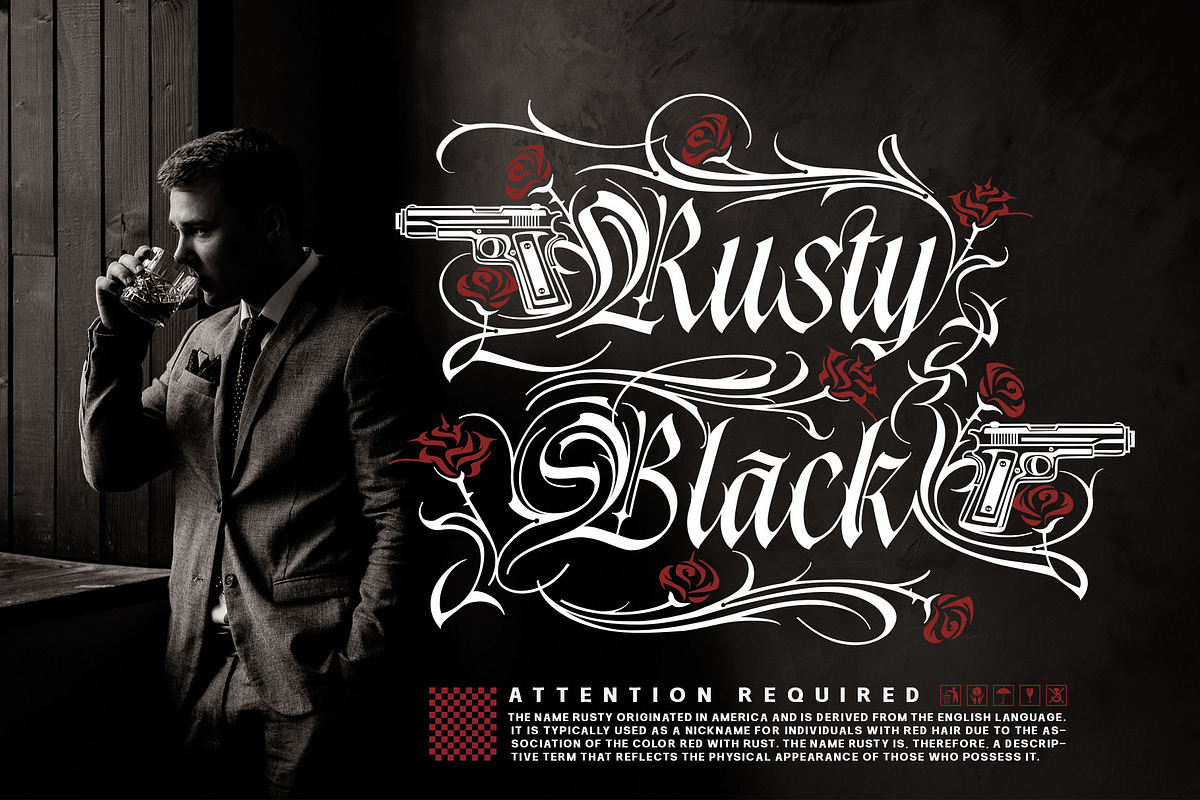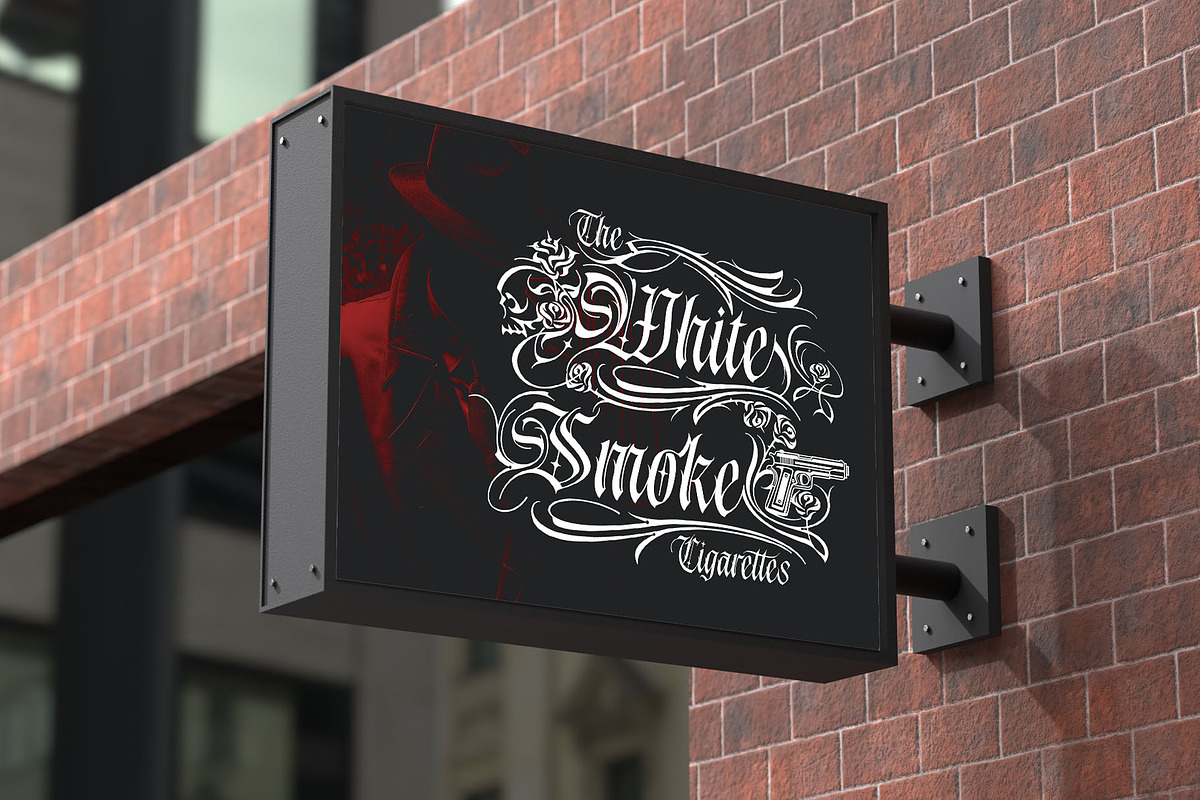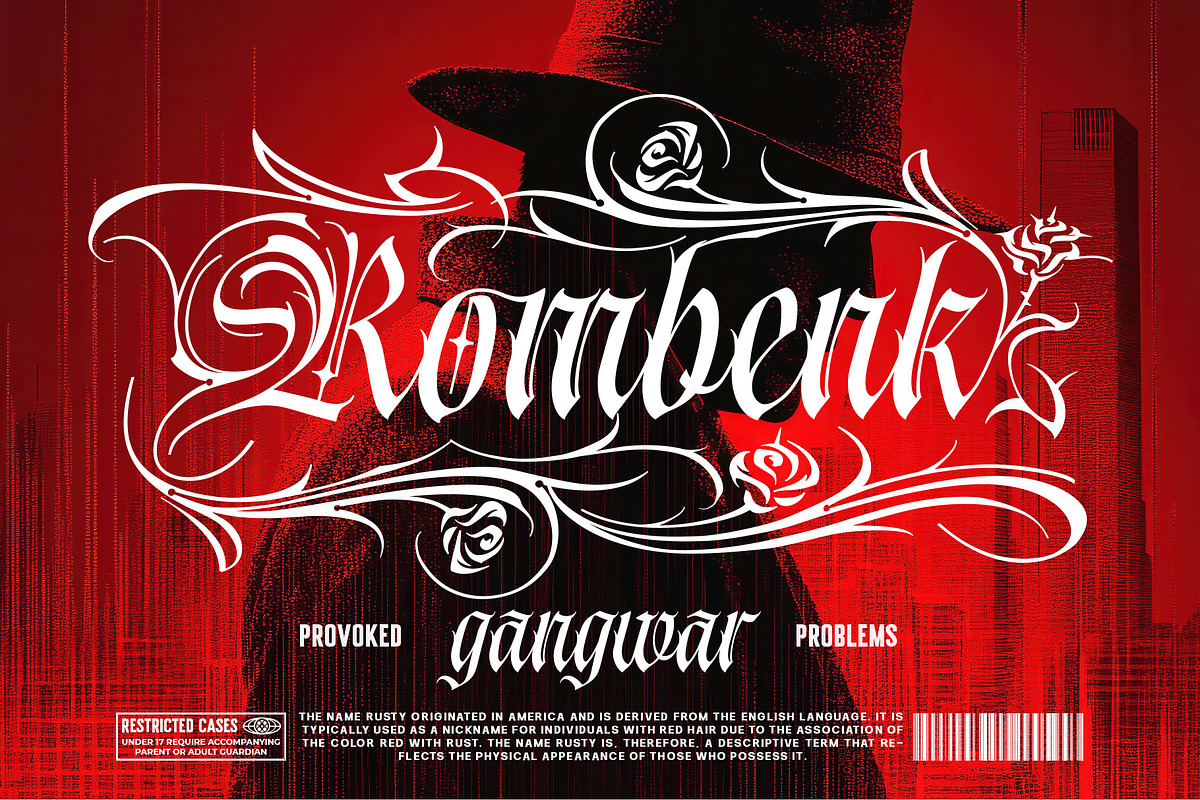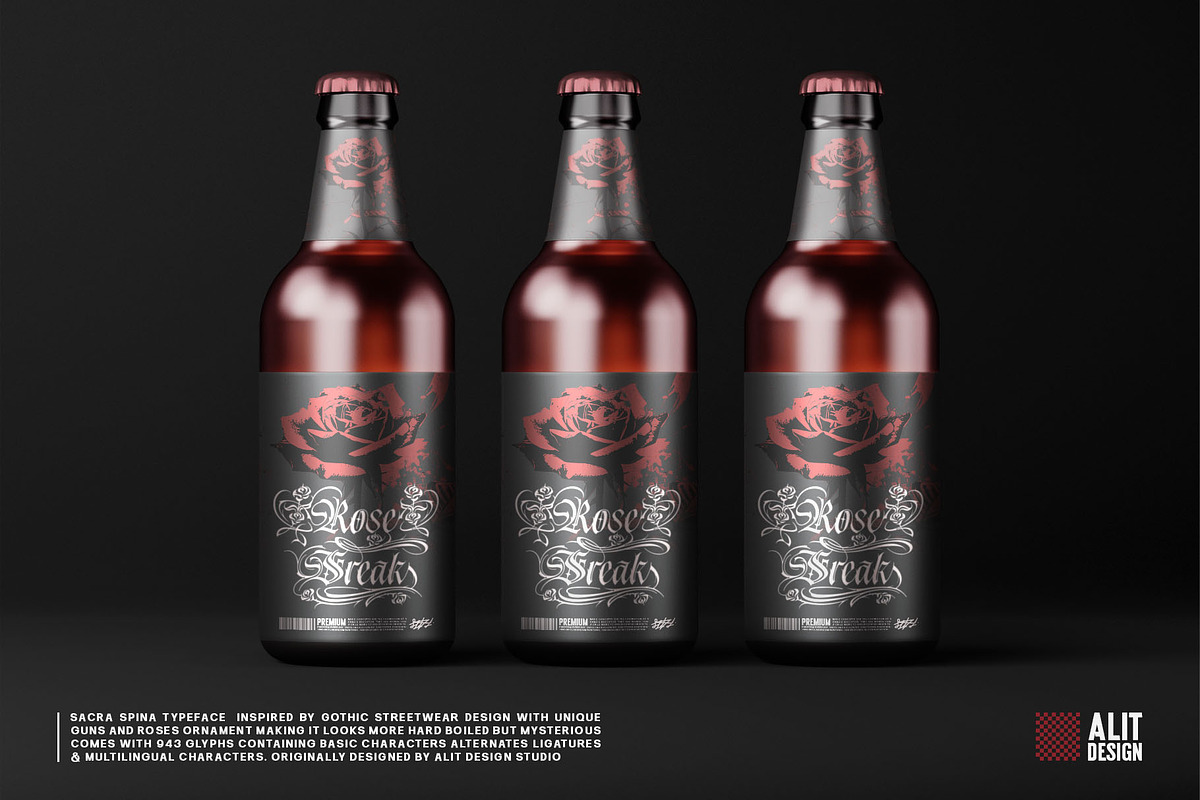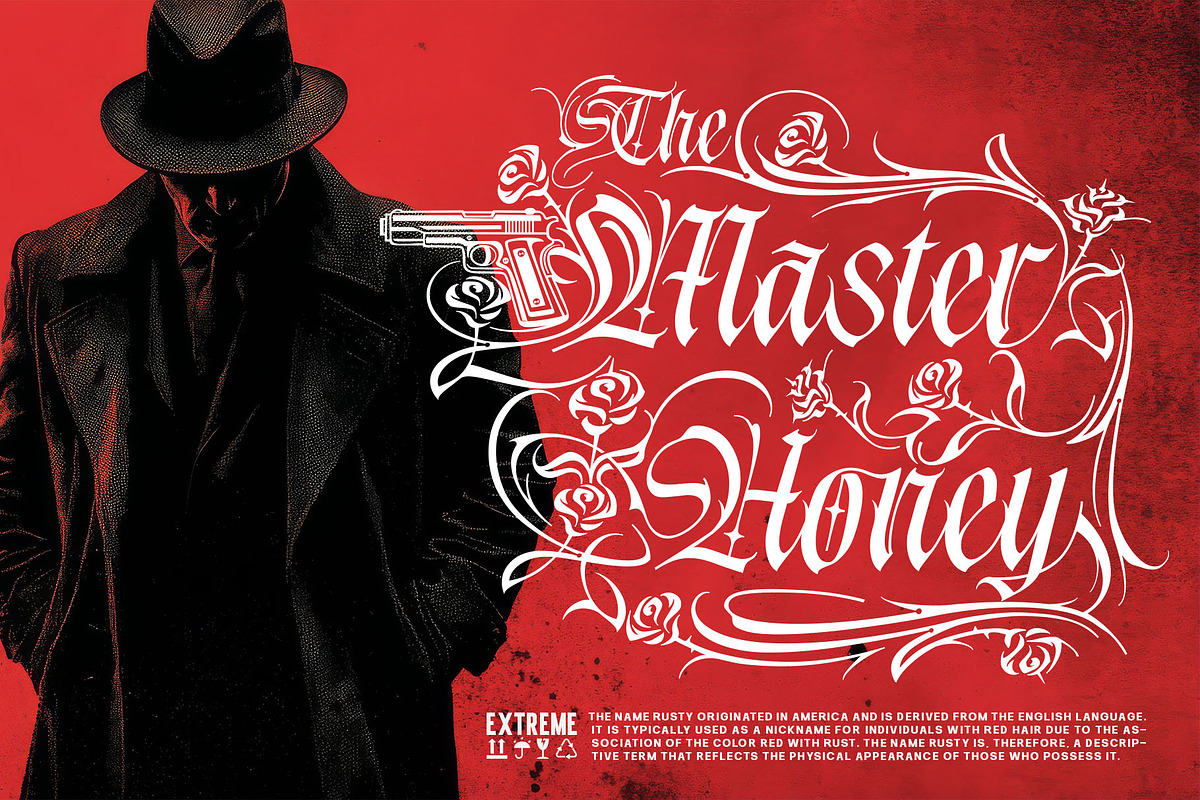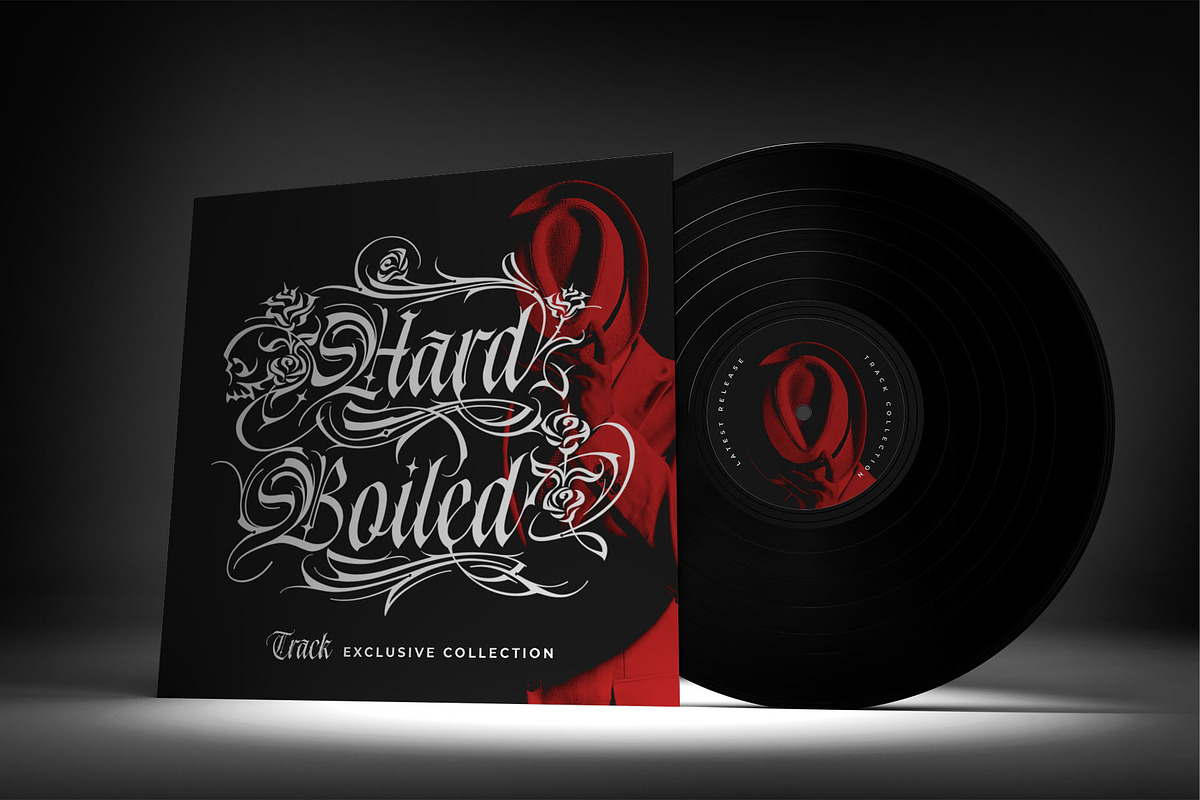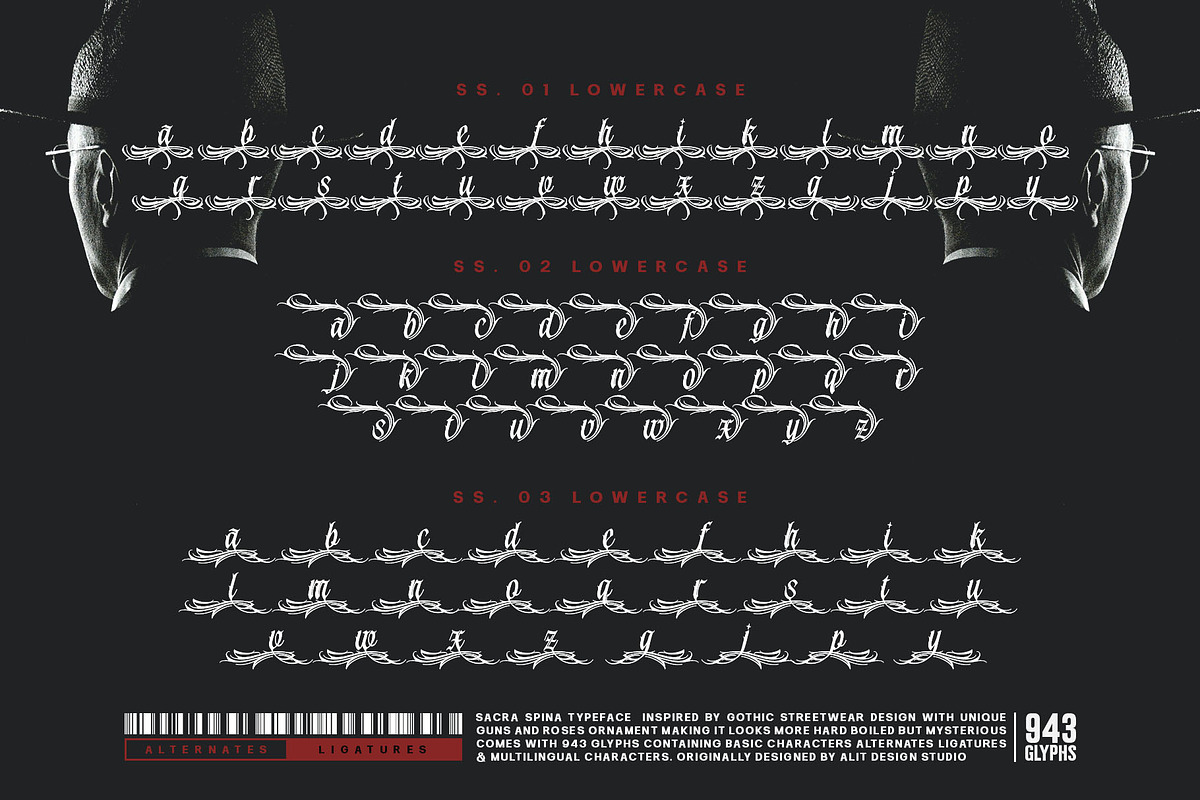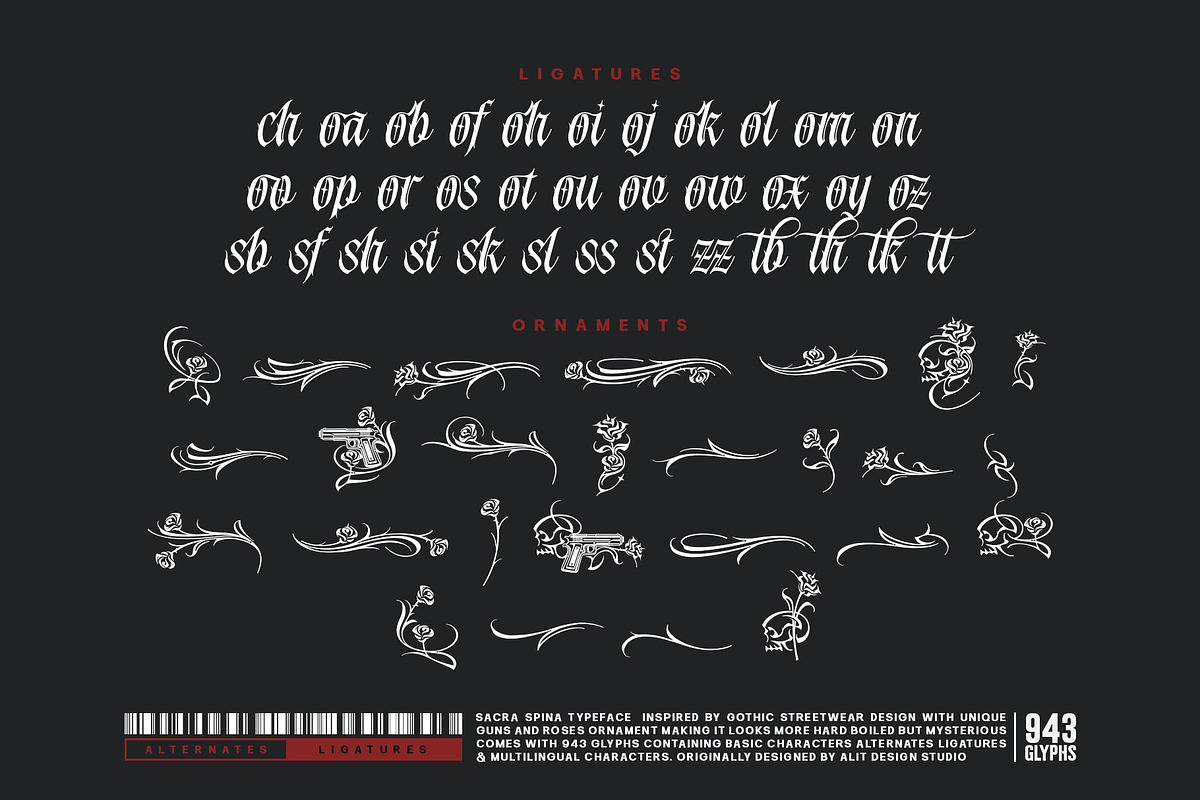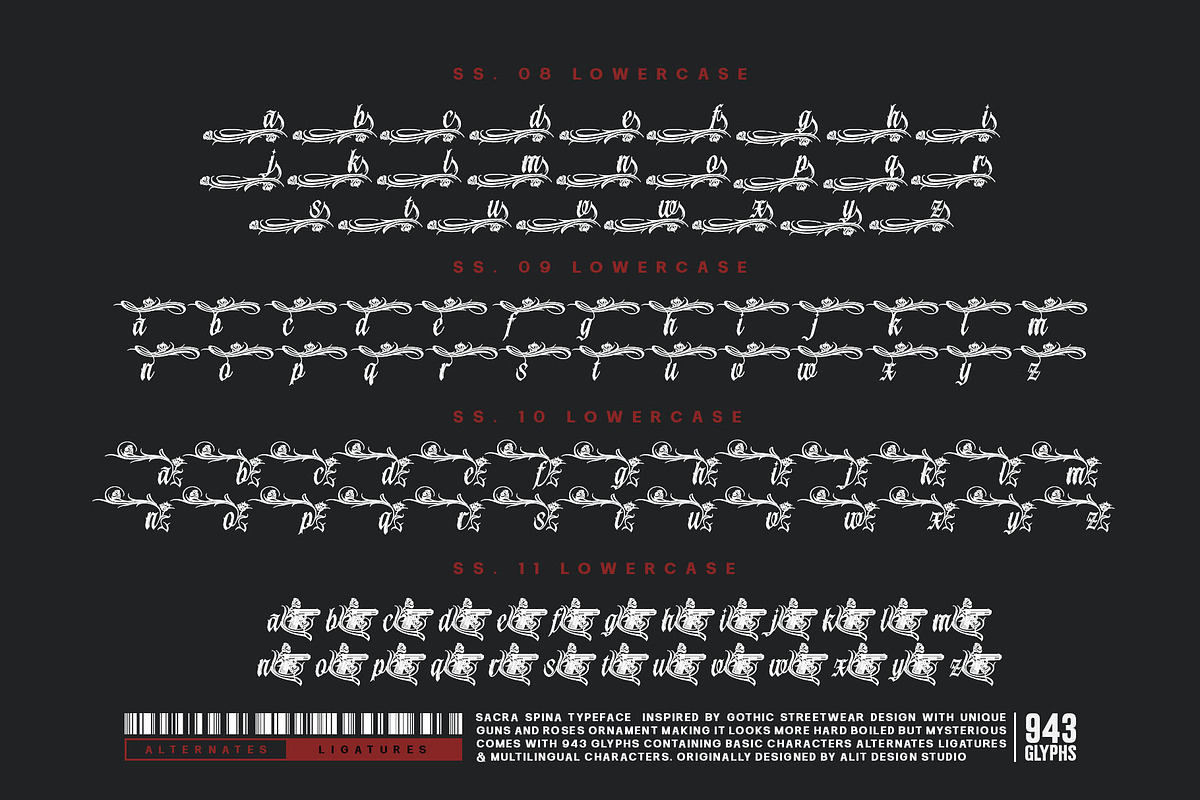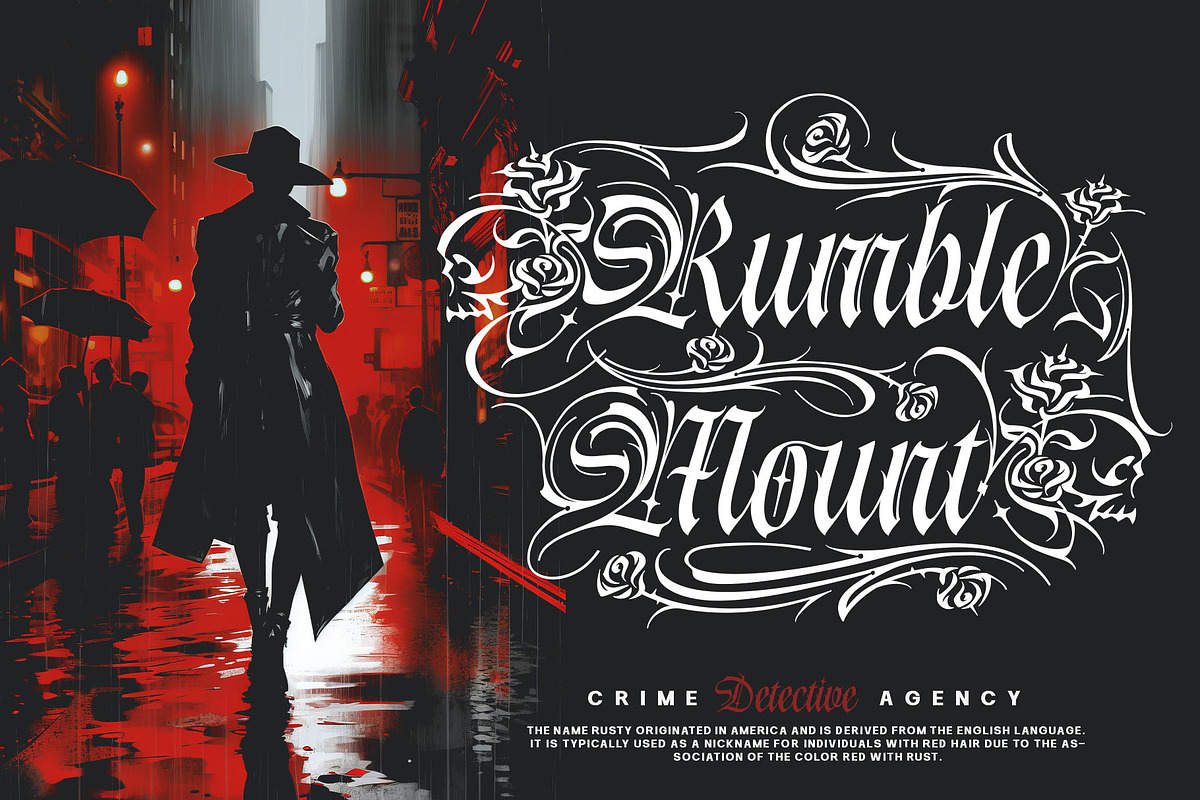
Sacra Spina Typeface
Sacra Spina | A Fierce Blackletter Typeface
Step into a world of shadow and intrigue with Sacra Spina, a blackletter typeface that bleeds attitude and sophistication.
Inspired by the raw energy of gothic streetwear and the clandestine world of classic mafia films, Sacra Spina is not just a font—it's a statement. It masterfully blends the timeless elegance of traditional blackletter calligraphy with a modern, rebellious edge. Every character is crafted to be both ornate and intimidating, making it the perfect weapon for designs that demand to be noticed.
The true power of Sacra Spina lies in its immense versatility and unique decorative elements. The font is armed with an arsenal of stylistic alternates, allowing you to transform your text from classic script to a piece of custom art. Weave intricate roses and thorns through your lettering for a touch of dark romance, or integrate the hard-hitting pistol swashes for a design that is truly dangerous.
- An Expansive Glyph Set: Featuring a massive 943 glyphs, providing you with limitless creative possibilities.
- Complete Character Sets: Includes standard uppercase, lowercase, numerals, and all essential punctuation.
- Massive Set of Stylistic Alternates & Ligatures:
- Multiple alternate uppercase sets.
- Unique swashes featuring guns, roses, and thorns to create truly custom and impactful typography.
- A vast collection of ligatures for a natural, hand-lettered flow.
PERFECT FOR:
Sacra Spina is built for projects that require a strong, mysterious, and unforgettable voice. It's the ideal choice for:
- Streetwear & Apparel Design: Create bold graphics for t-shirts, hoodies, and brand logos.
- Tattoo Artistry: Perfect for tattoo designs and studio branding.
- Music & Entertainment: Design striking album covers, tour posters, and artist branding for genres like metal, hip-hop, and rock.
- Branding & Packaging: Develop logos and labels for liquor brands, cigar lounges, or exclusive products.
- Poster & Book Covers: Craft compelling titles for crime documentaries, noir films, and thriller novels.